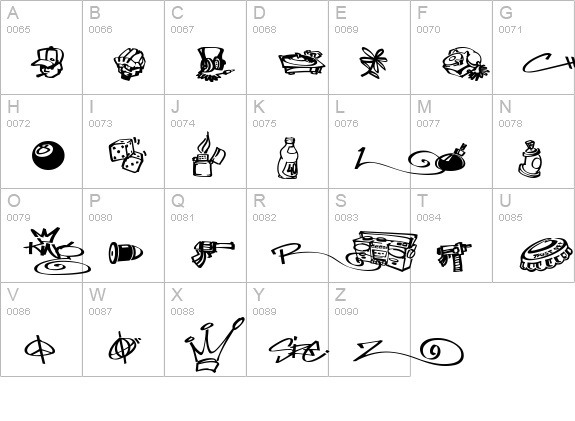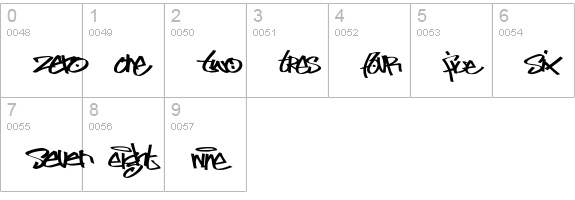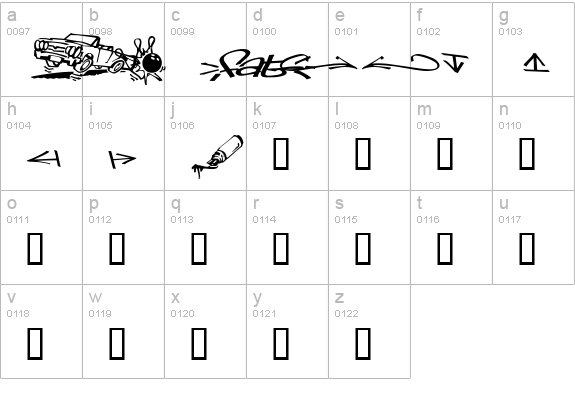
Marker Icons Font Details
Introducing Marker Icons font, a versatile and dynamic typeface that is sure to add a playful touch to any design project. This font is packed with a wide range of marker-style icons, perfect for adding a whimsical and hand-drawn feel to your creative endeavors. With its bold and expressive strokes, Marker Icons font brings a sense of fun and spontaneity to your designs, making it ideal for everything from logo designs to social media graphics, website elements, and more. The collection features a diverse range of icons, including everyday objects, animals, symbols, and popular emblems, ensuring that you'll find just the right icon to suit your needs. What's more, Marker Icons font is available for free download at FontsMarket.com, making it easily accessible to designers and enthusiasts alike. Whether you're a professional designer looking to add a unique touch to your projects or a hobbyist seeking to enhance your creative endeavors, Marker Icons font offers an abundance of possibilities. With its high-quality and attention to detail, Marker Icons font ensures crisp and sharp icons, even at smaller sizes. The hand-drawn aesthetic adds a personal and human touch to your designs, allowing you to connect with your audience on a deeper level. So why wait? Download Marker Icons font today and unleash your creativity. With its wide range of freely available icons, this font will undoubtedly become an essential tool in your design arsenal. Whether you're creating illustrations, infographics, or simply want to add a touch of character to your project, Marker Icons font offers endless possibilities for your creative endeavors.